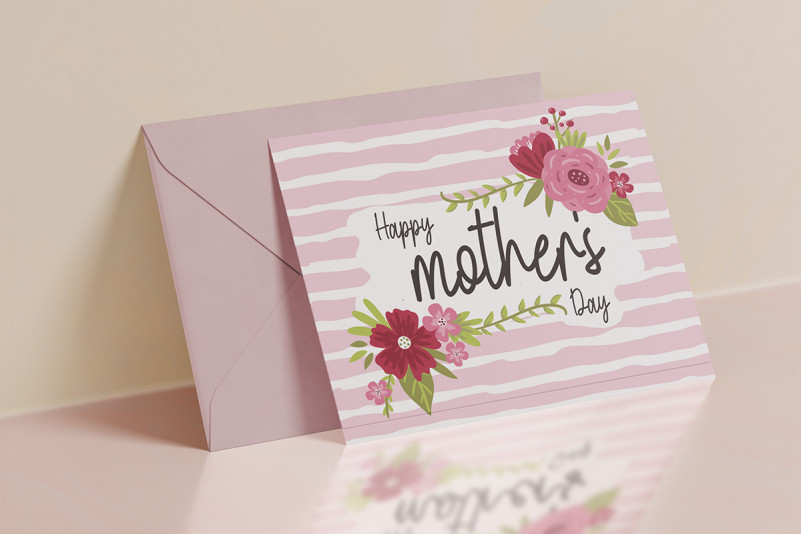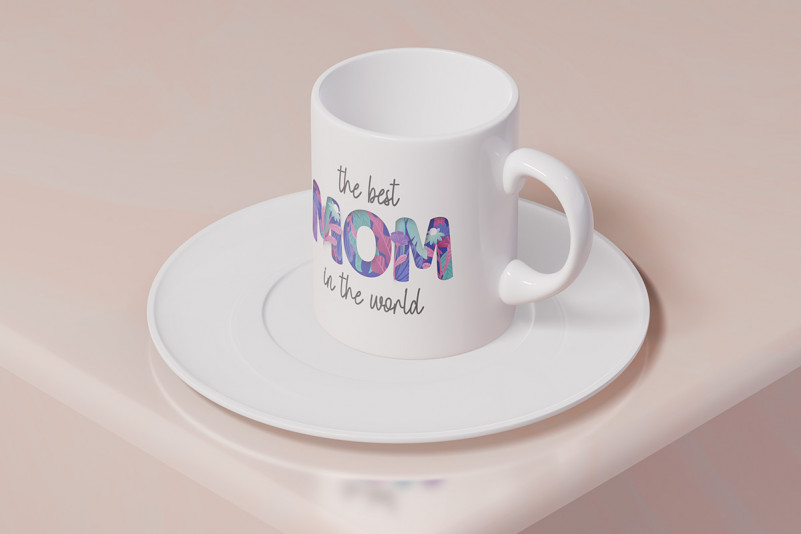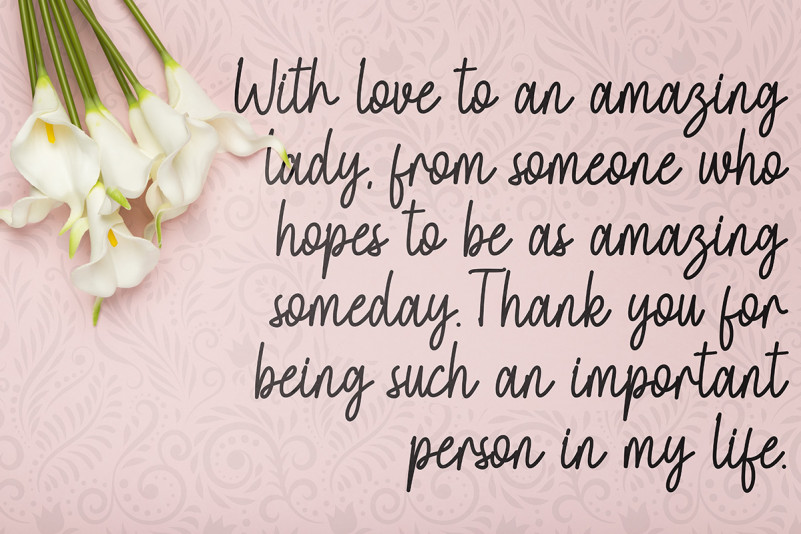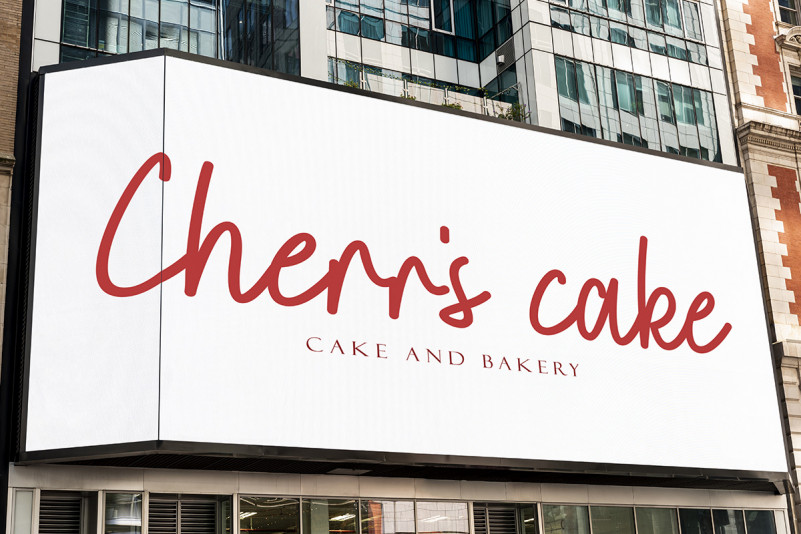
Leonisa Handwritten Font
This is a beautiful and elegant monoline script font. This font is perfect for all your work. The embellishments in this font are very easy to use and are also equipped with procedures for using them. This font is suitable for promotion, business, summer, spring, traveling, holiday, quotes, wedding, invitation, greeting card, birthday, potography, logo, poster, branding, banner, print and others.